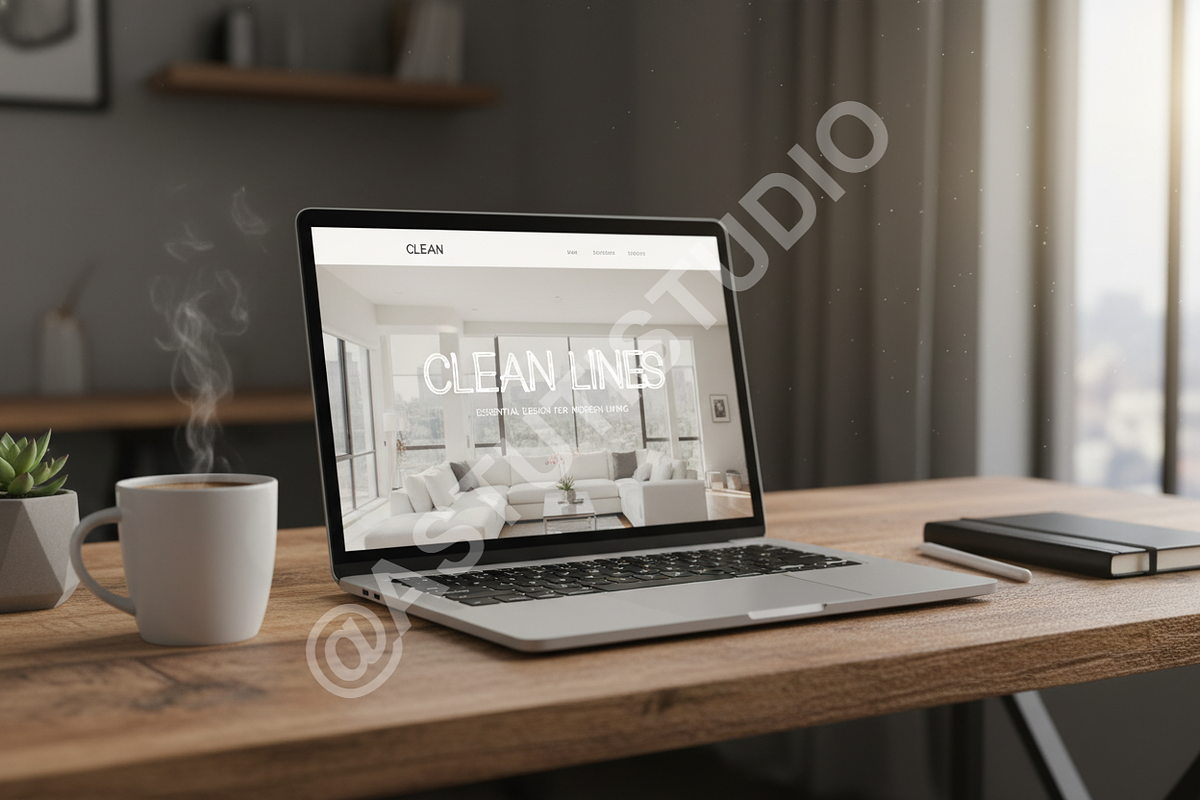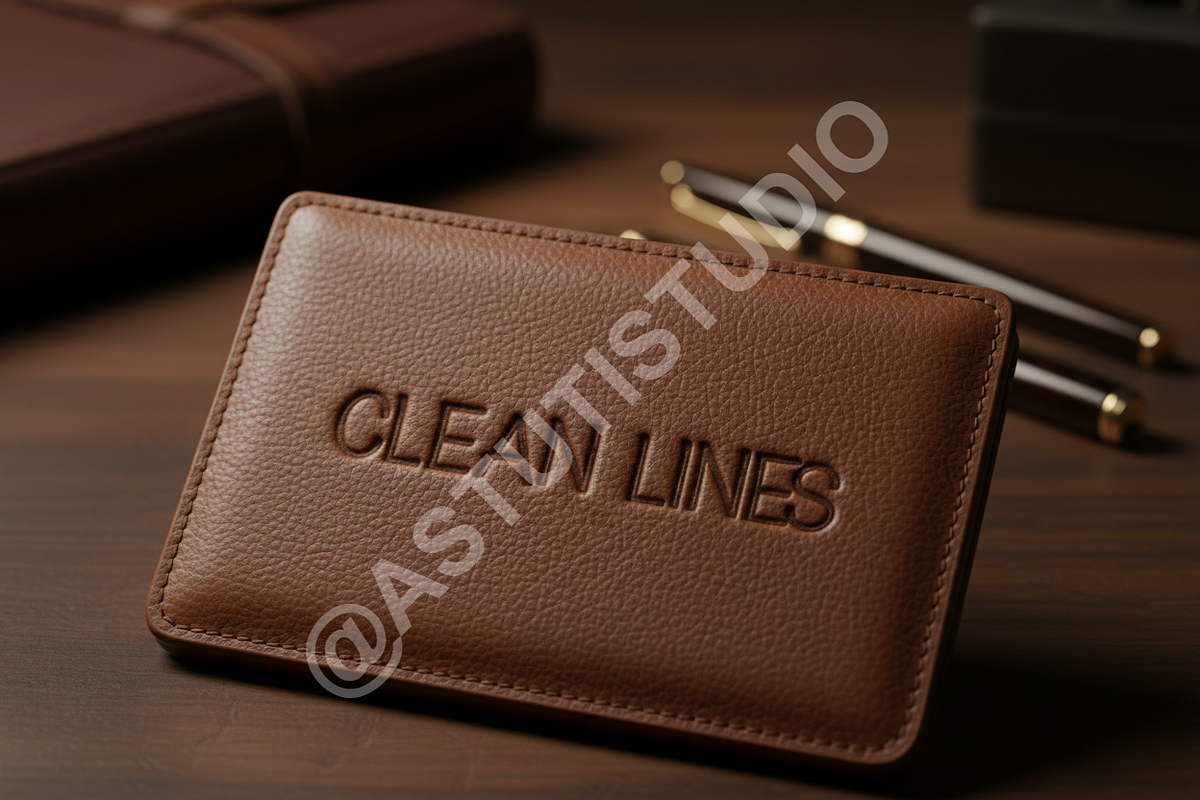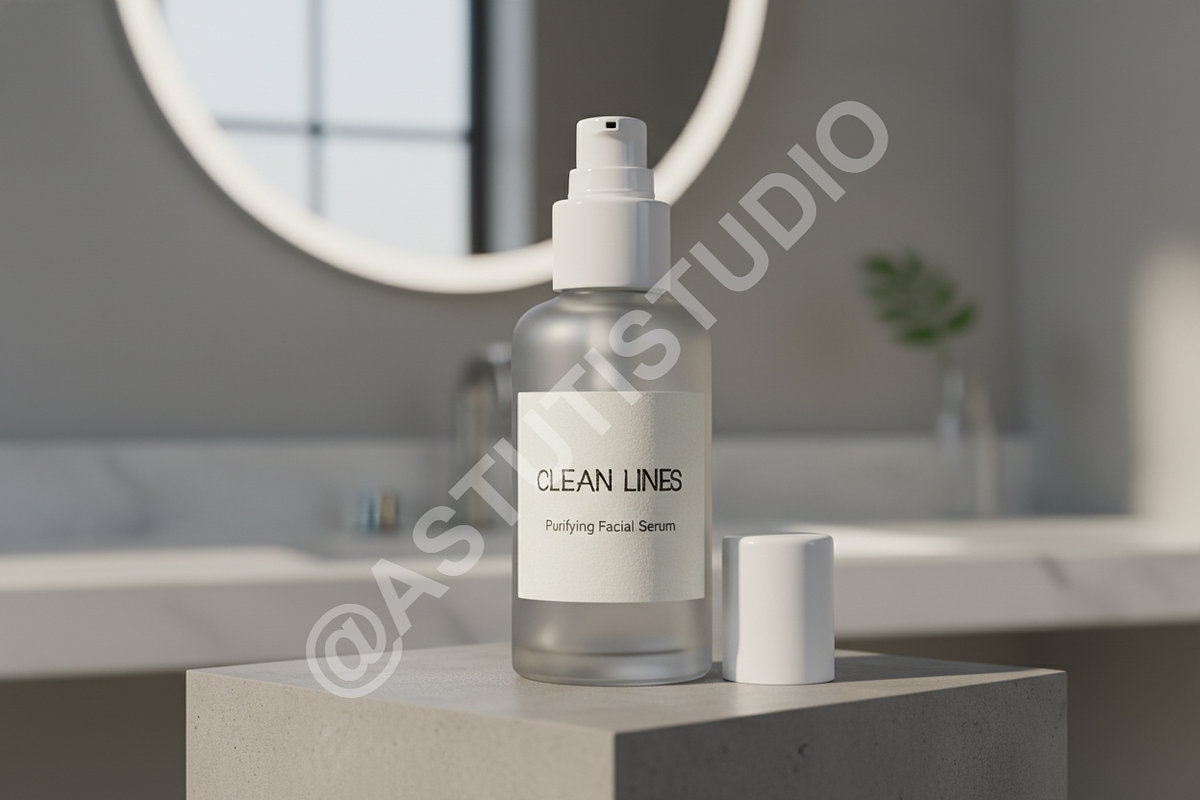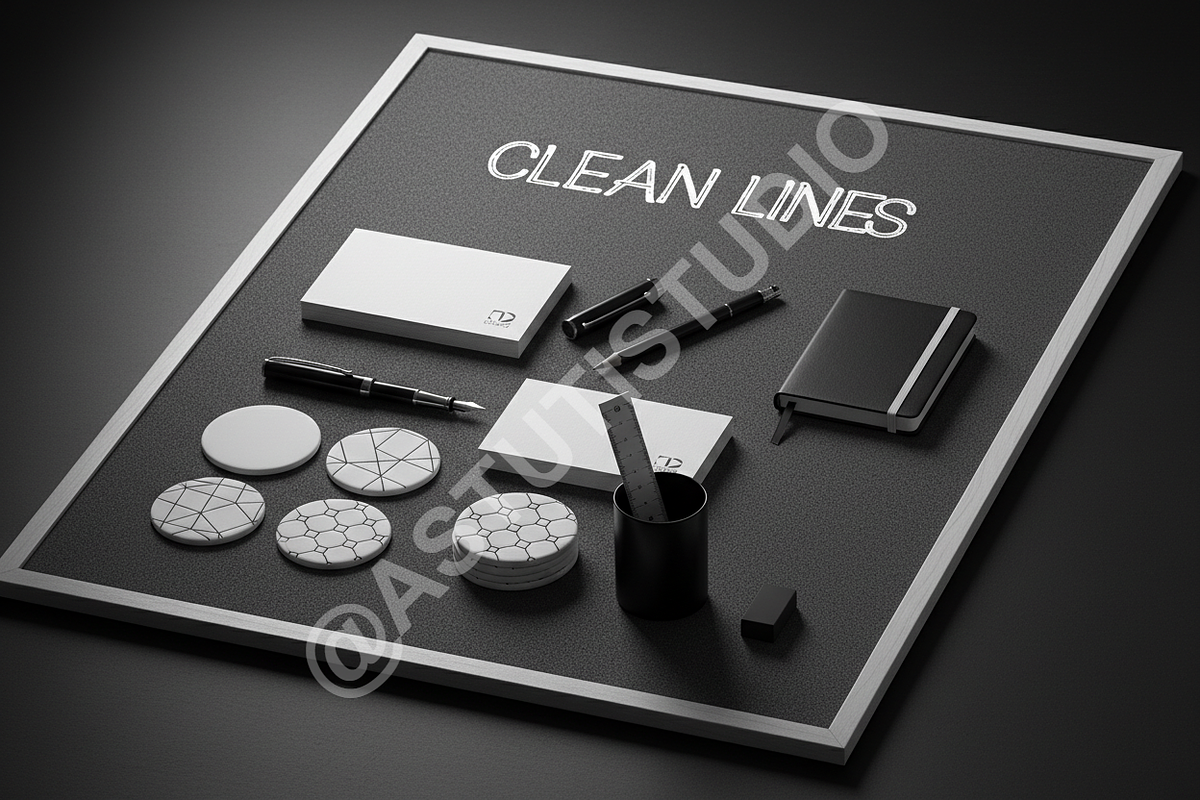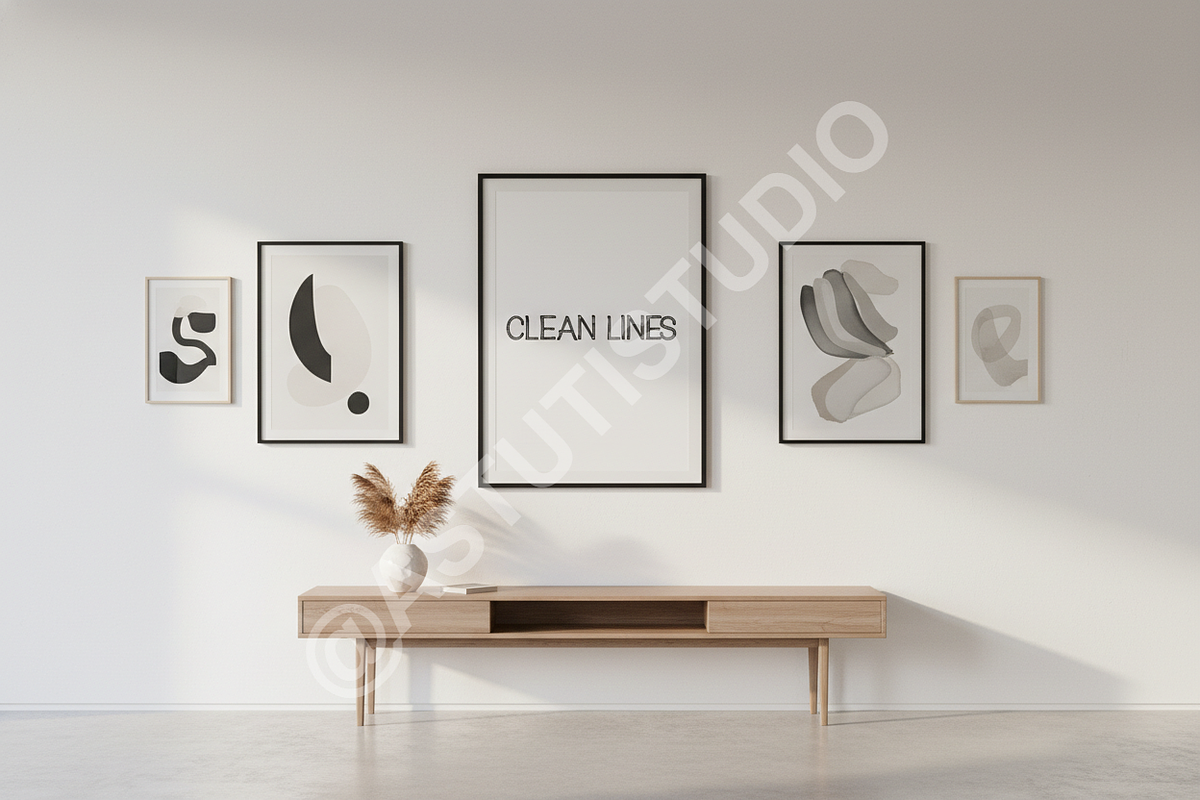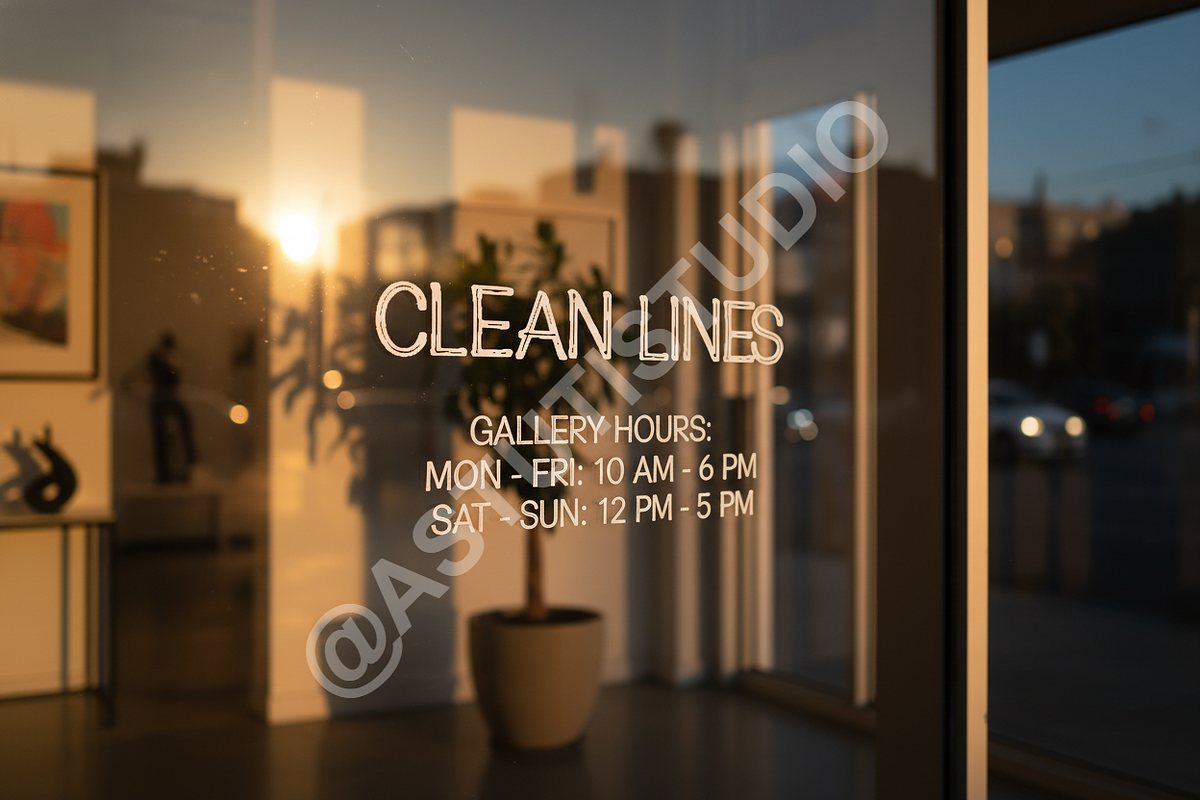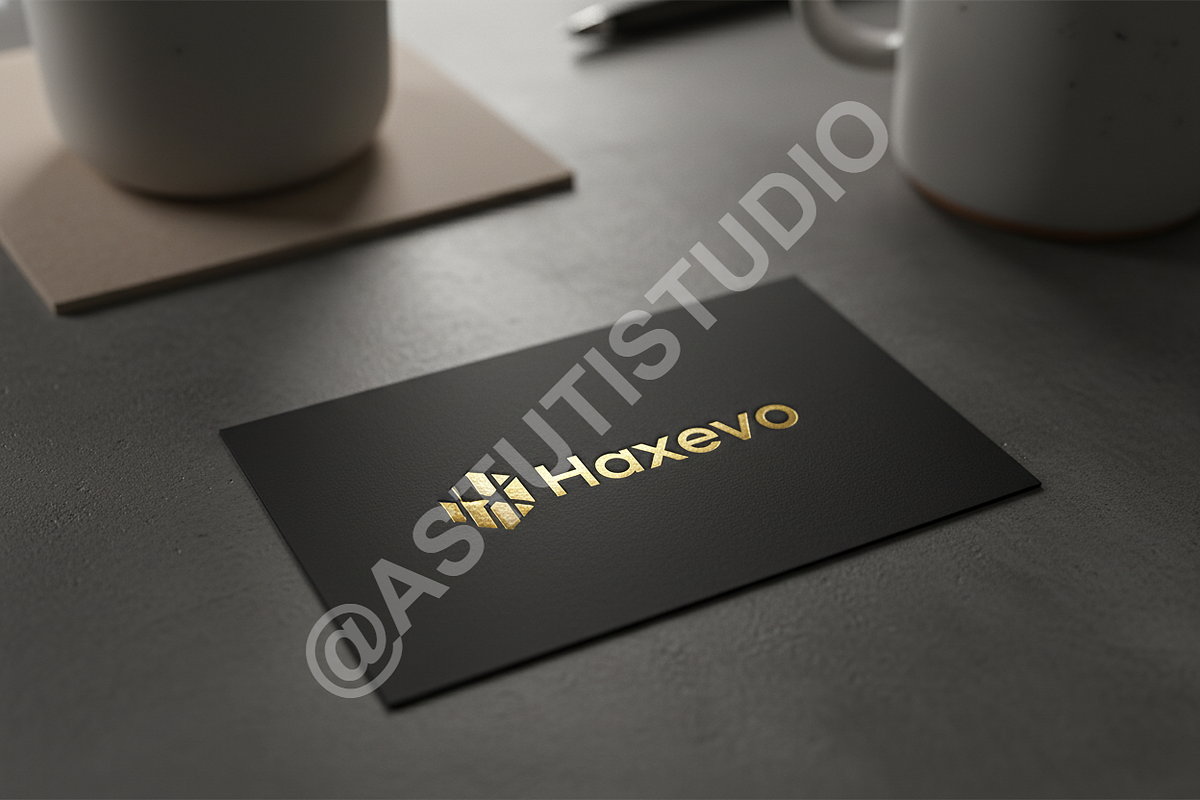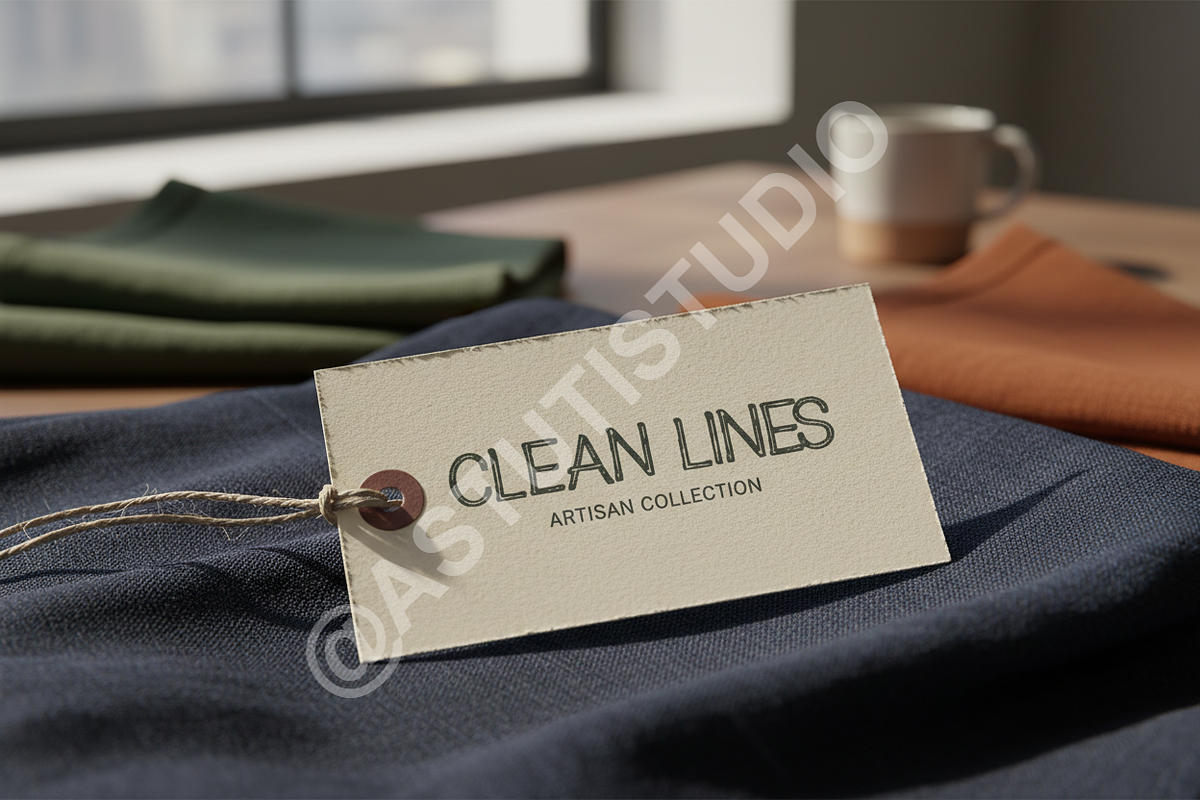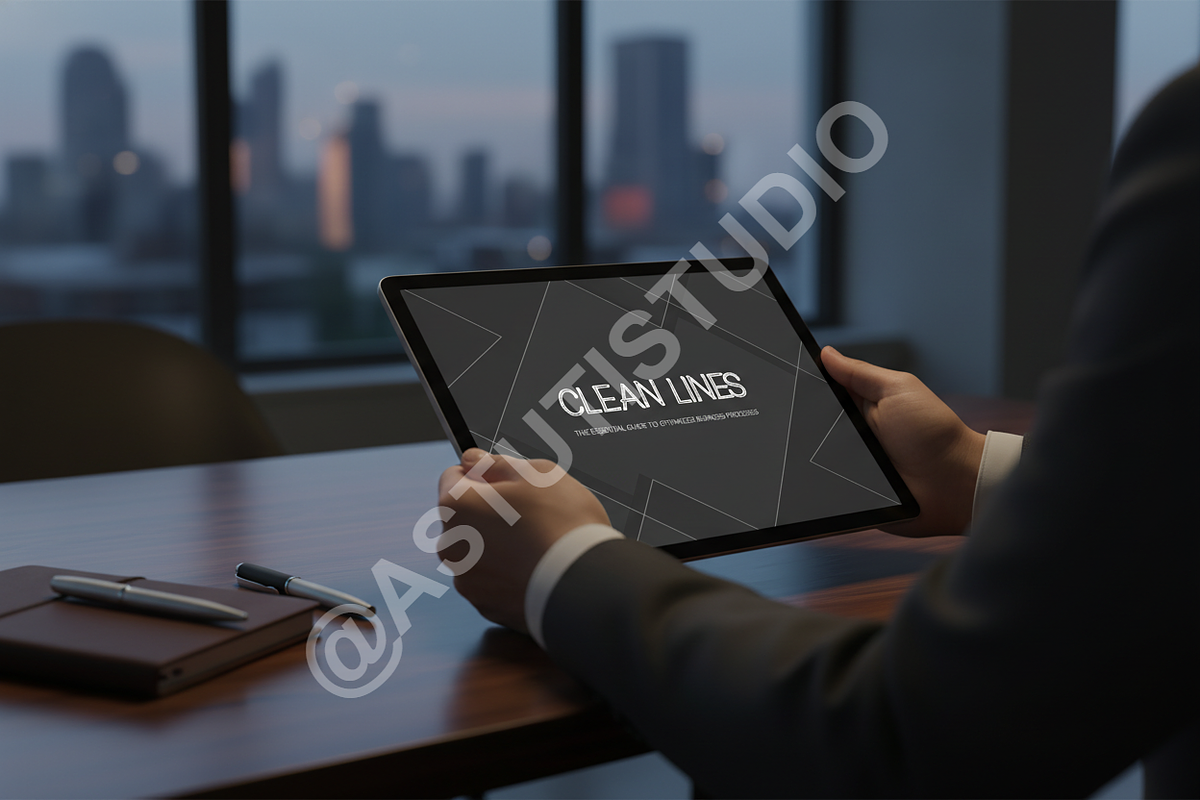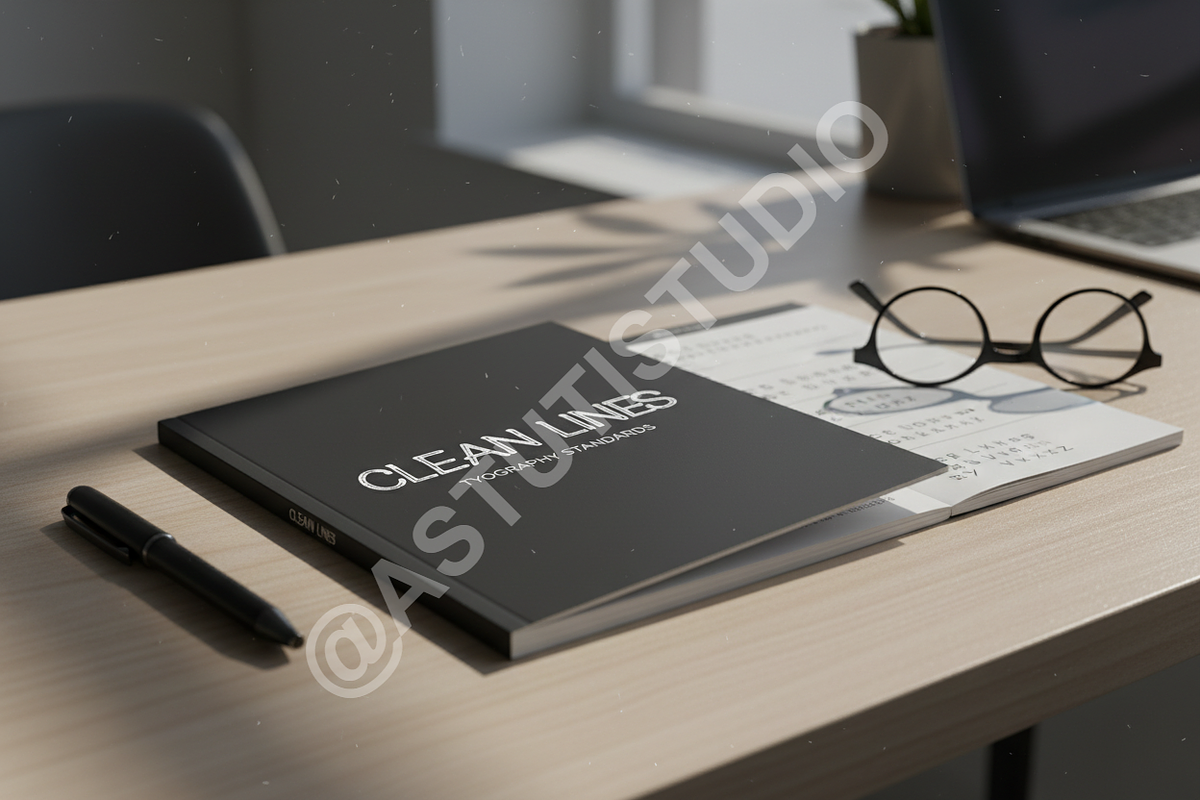
Haxevo | Modern Elegant Serif Typefa
Haxevo is a masterfully crafted serif typeface designed for the discerning creator. Striking a perfect balance between timeless sophistication and modern versatility, Haxevo brings an air of quiet luxury to every project. Whether you are crafting a high-end editorial layout or developing a cohesive brand identity, this font delivers professional results with effortless grace.
- Luxury Branding and Identity Systems
- High-End Editorial and Magazine Layouts
- Sophisticated Social Media Graphics
- Elegant Wedding Stationery
- Minimalist Web Design
- Complete character set including uppercase and lowercase
- Professional kerning and letter spacing
- Comprehensive multilingual support
- Clean, high-contrast strokes for maximum legibility